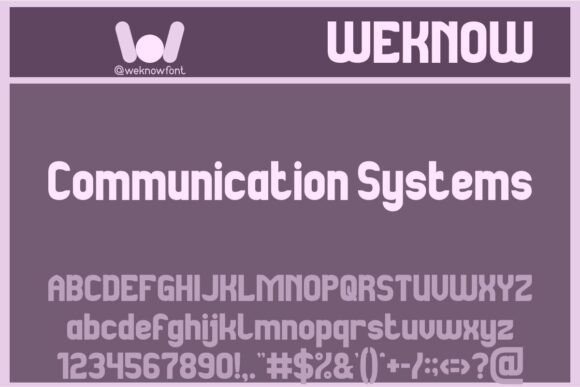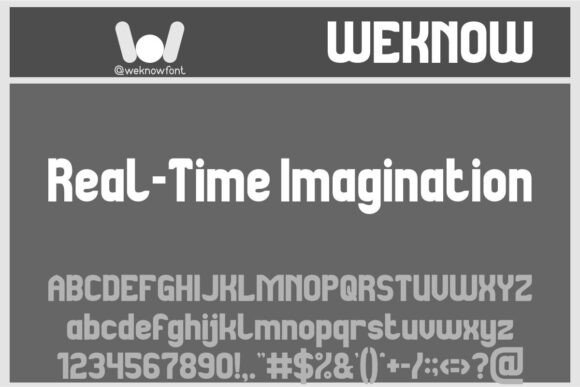
Computer Science Font
Introducing the inimitable style of our ‘Computer Science’ font – a versatile sans serif gem that beautifully combines clear, sharp lines with a bold, modern aesthetic. This smooth display font is perfect for weaving your corporate and brand identity, shaking things up on social media, catching the eye on YouTube and Instagram, or adding that final flourish to your creative design projects.From the vibrant world of music, movies, and games to the playful spaces of comics and cartoons; from dynamic headlines to audacious apparel designs, the ‘Computer Science’ font enhances every tableau with its distinctive charm. It’s the ideal element you need for crafting memorable logos, and logotypes or for lending a unique voice to books, magazines, and websites. Experience the versatility and vibrancy of ‘Computer Science’ font in your next creative endeavor.